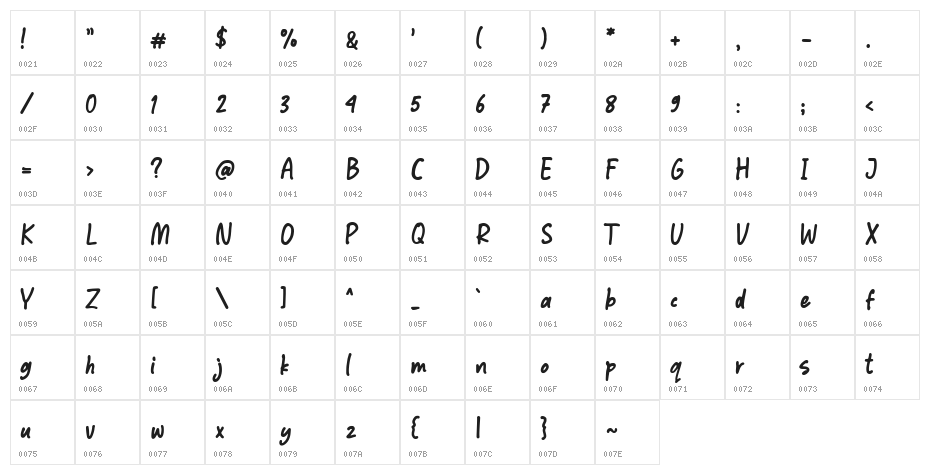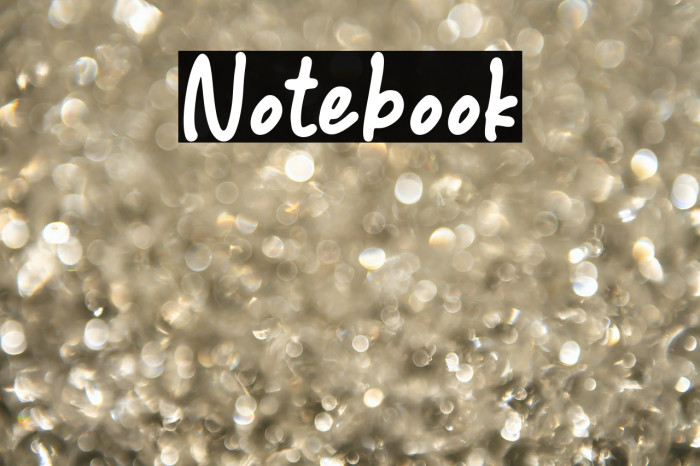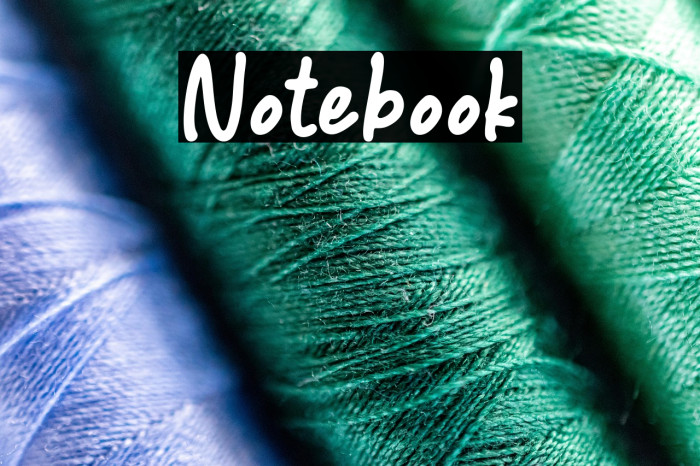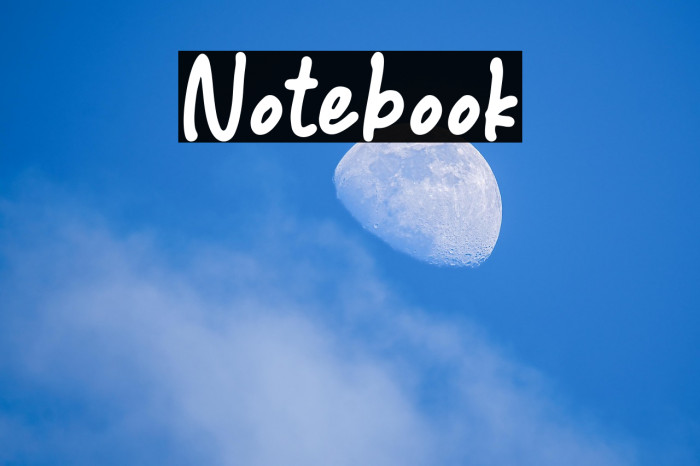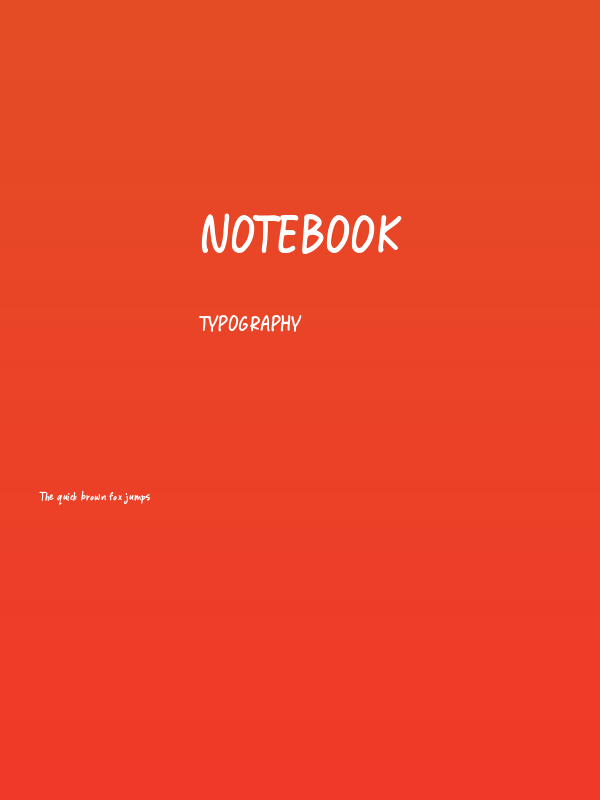
Notebook Font
Notebook Description
This font features a playful and casual handwritten style, characterized by its smooth, rounded strokes and slightly irregular letterforms that mimic natural handwriting. The uppercase and lowercase letters maintain a consistent flow, with a moderate slant that adds to its informal appearance. The numerals and special characters are crafted with the same attention to detail, ensuring a cohesive look across all glyphs. The font's overall aesthetic is friendly and approachable, making it ideal for projects that require a personal touch. Its legibility is enhanced by the balanced spacing between characters, which prevents any visual clutter.
| Use Case | Headlines, Logos, Informal text |
| Proposed Projects | Ideal for greeting cards, personal invitations, children's books, and casual branding projects. |